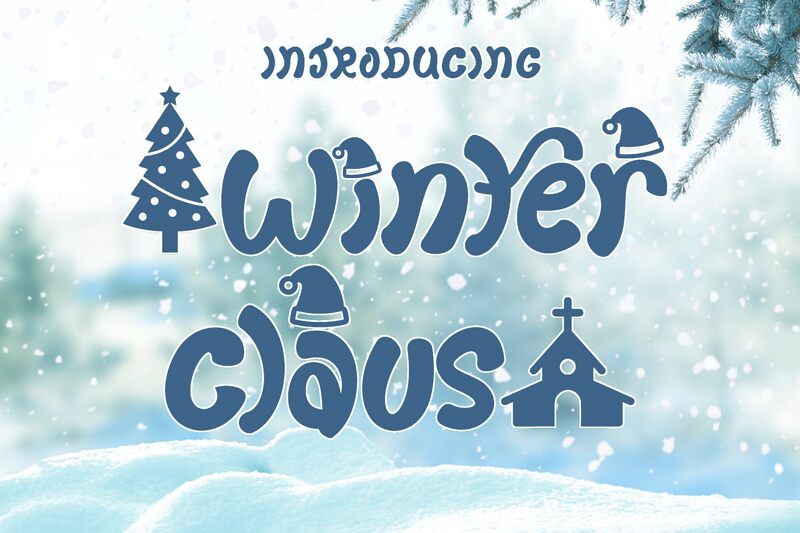
Winter Claus, a festive creation by Yoga Letter, captures the essence of the holiday season with its bold and merry design. This Christmas-themed font boasts a distinctive style that conjures images of snowy landscapes and cozy fireside gatherings. Its robust weight adds a touch of warmth to any project, making it an ideal choice for holiday cards, seasonal advertising campaigns, and event invitations.
The Winter Claus font's characters are adorned with playful serifs and whimsical elements that evoke the joyous spirit of Christmas. The smooth curves paired with subtle decorative details offer a balance between cheerfulness and sophistication. This makes it not only visually appealing but also versatile in its application.
Whether it's for branding a winter festival or crafting an enchanting headline on a gift tag, Winter Claus has the potential to transform ordinary text into an extraordinary seasonal message. With its unique charm and eye-catching appeal, this font is poised to bring your creative projects to life with the magic of the holidays.